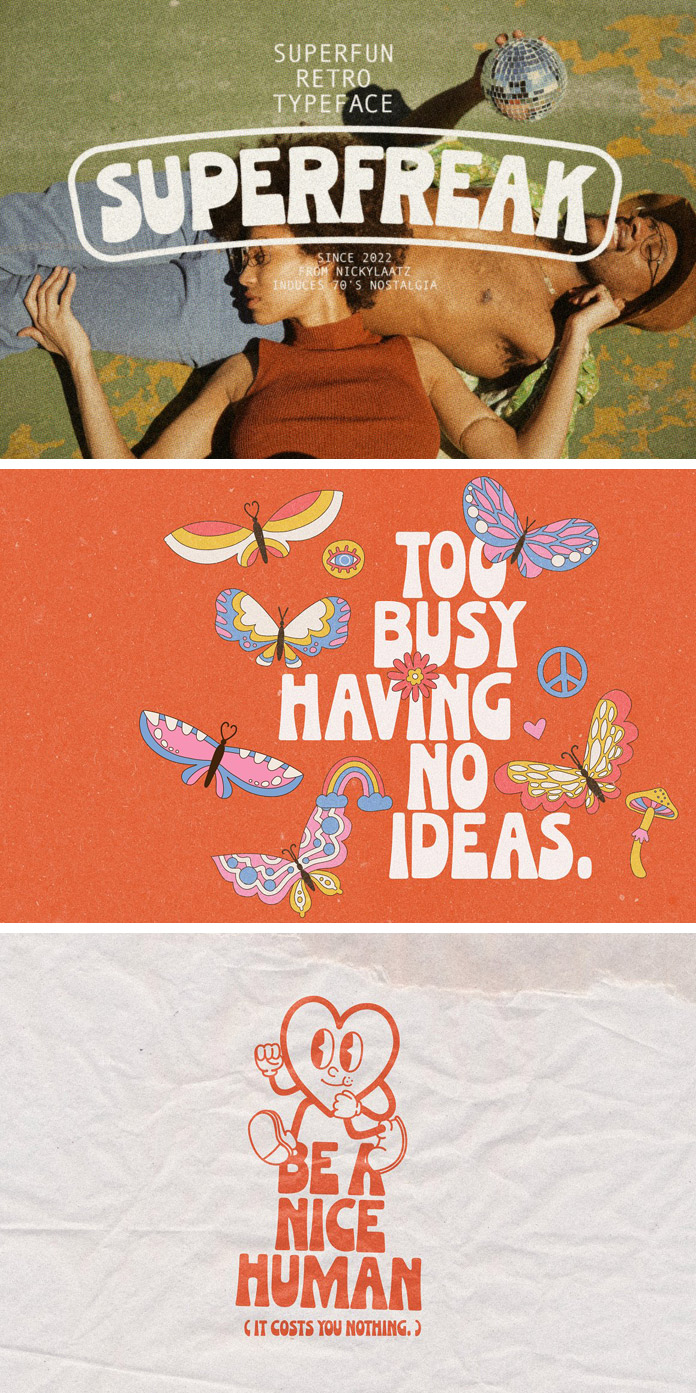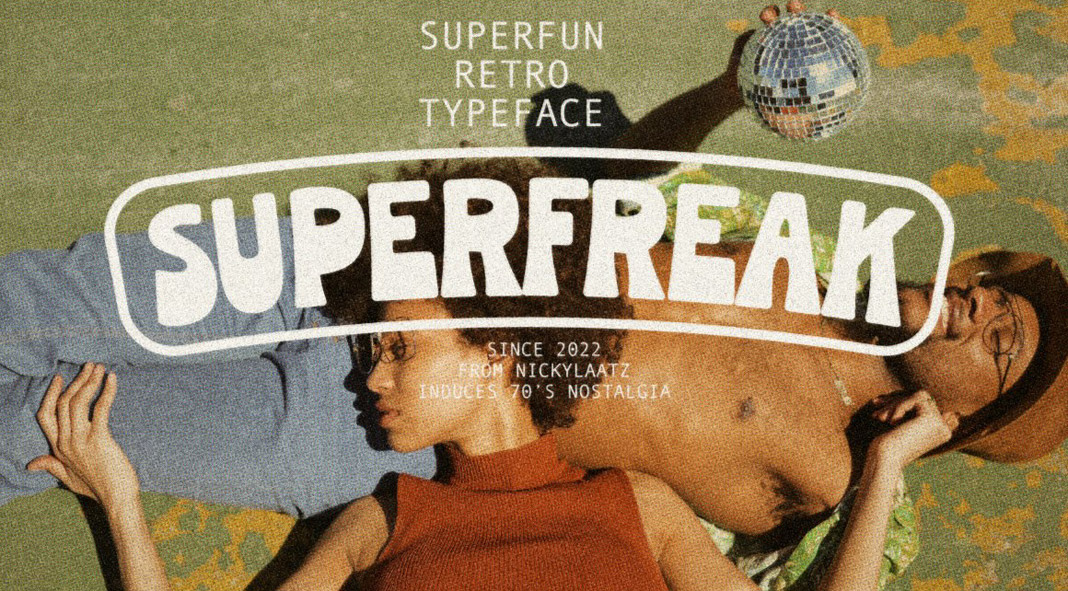
Check out Superfreak, a fun retro typeface designed and published by Nicky Laatz.
Inspired by the groovy typefaces of the 1970s and the flower power hippie movement, the Superfreak font will transform your design into something really eye-catching. The Superfreak font contains two versions: Regular and Outline. It supports countless languages including English, Danish, French, German, Spanish, and Swedish.